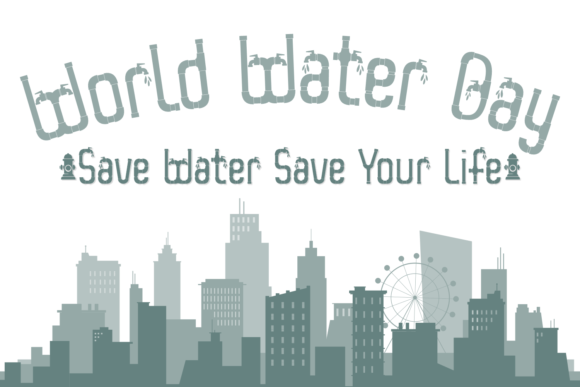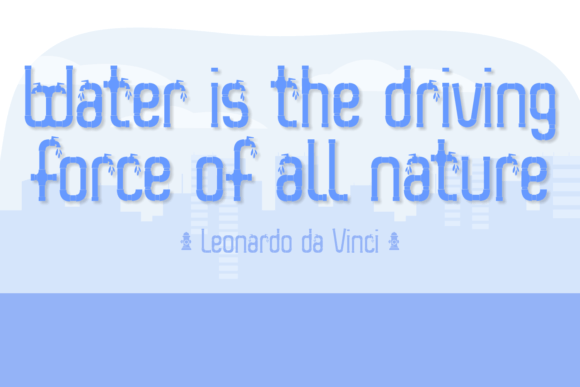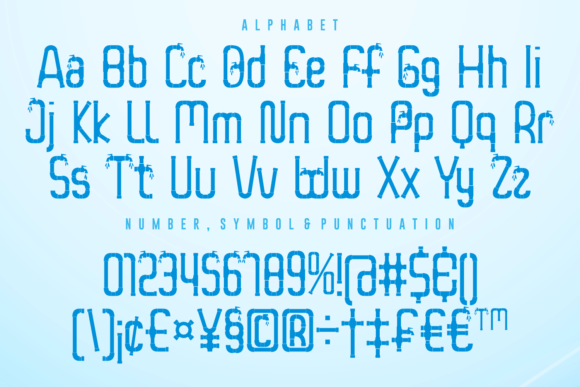
Funny Pipe Font
Funny Pipe is a fun and quirky decorative font. It is ideal for plumbing and awareness themes, as well as others. Enhance your creative design projects by using this unique typeface!This font is PUA encoded, so you can easily access the extra hydrant glyph!